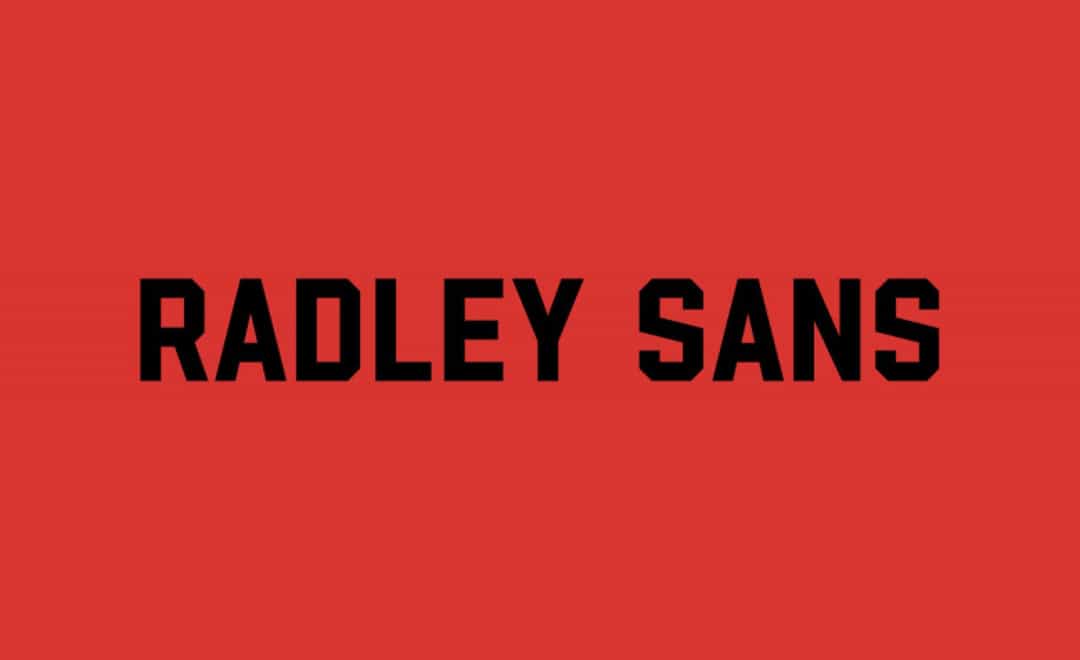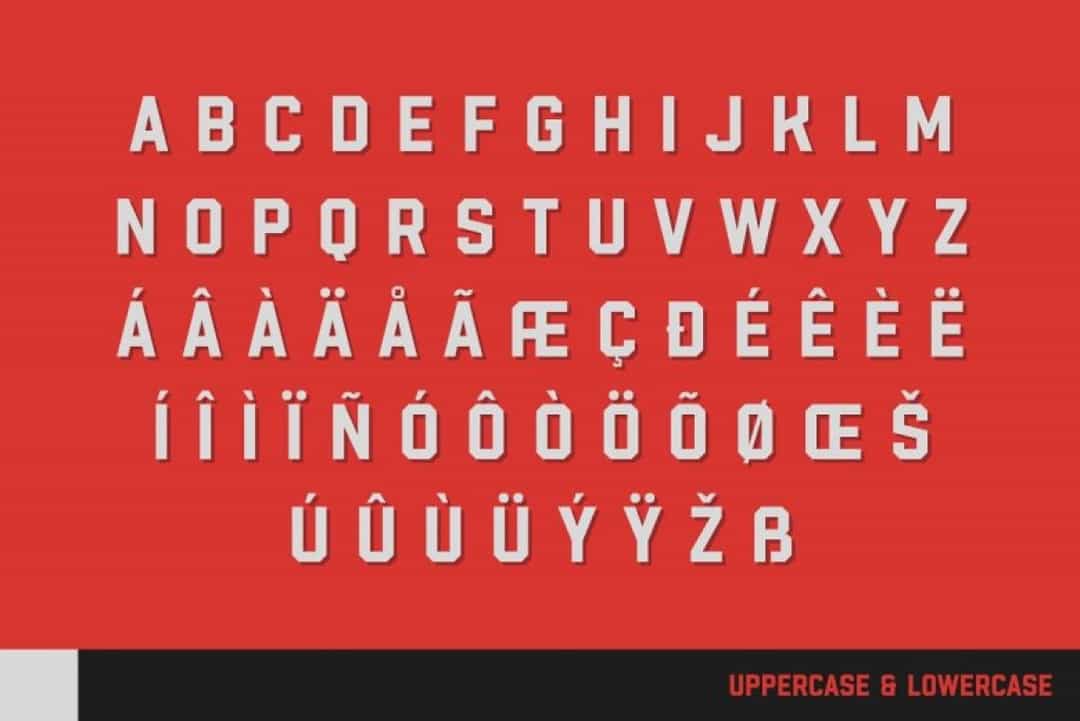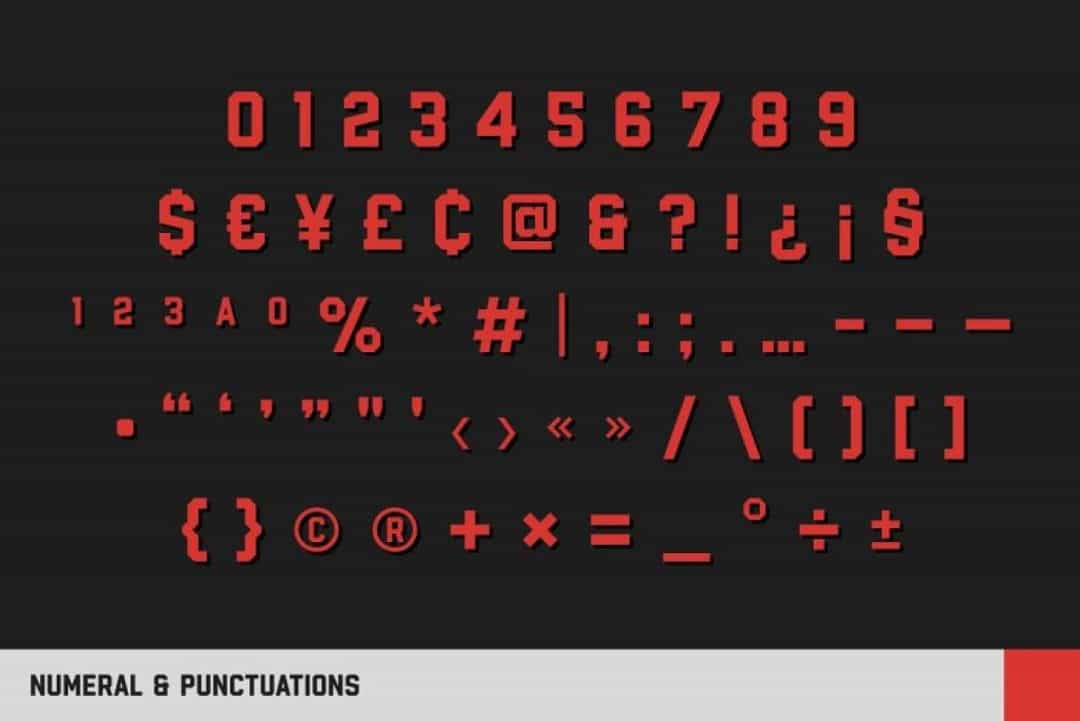
Radley Font It is an all-caps typeface designed specifically for use in sports branding and logotype design, featuring one font to assist with creating stunning projects. Get it now!